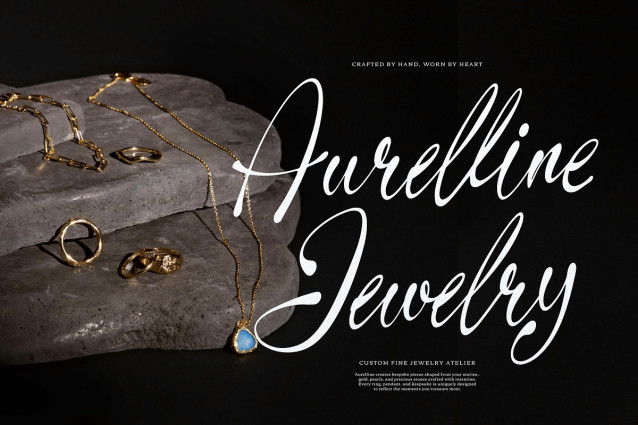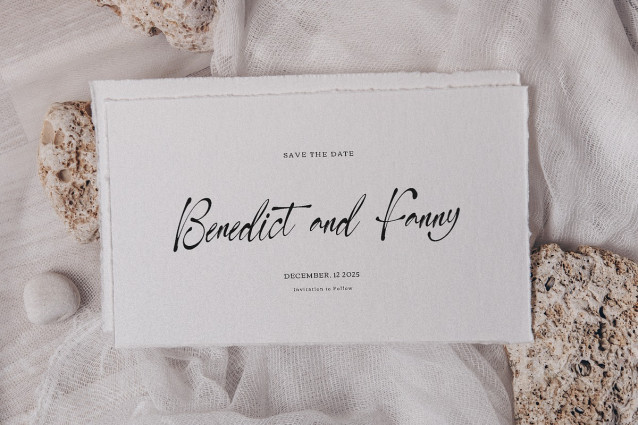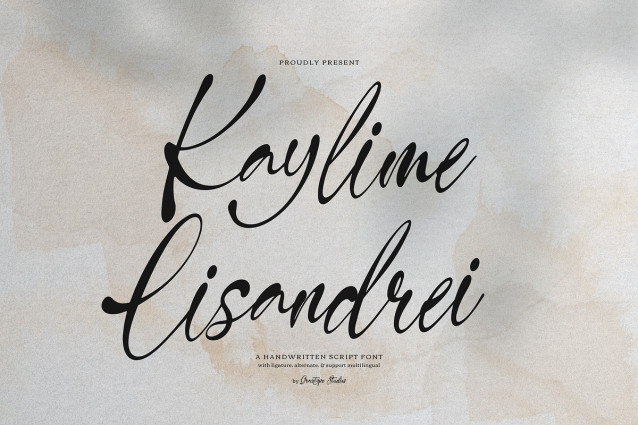
Kaylime Lisandrei Handwriting Font
Kaylime Lisandrei Handwriting Font | Handwritten Script, from Gracetypestudio, suitable for any projects such as: logos, branding projects, homeware designs, product packaging, mugs, quotes, posters, shopping bags, t-shirts, book covers, name card, invitation cards, greeting cards, label, photography, watermark, special events, and all your other lovely projects that need a Script taste.